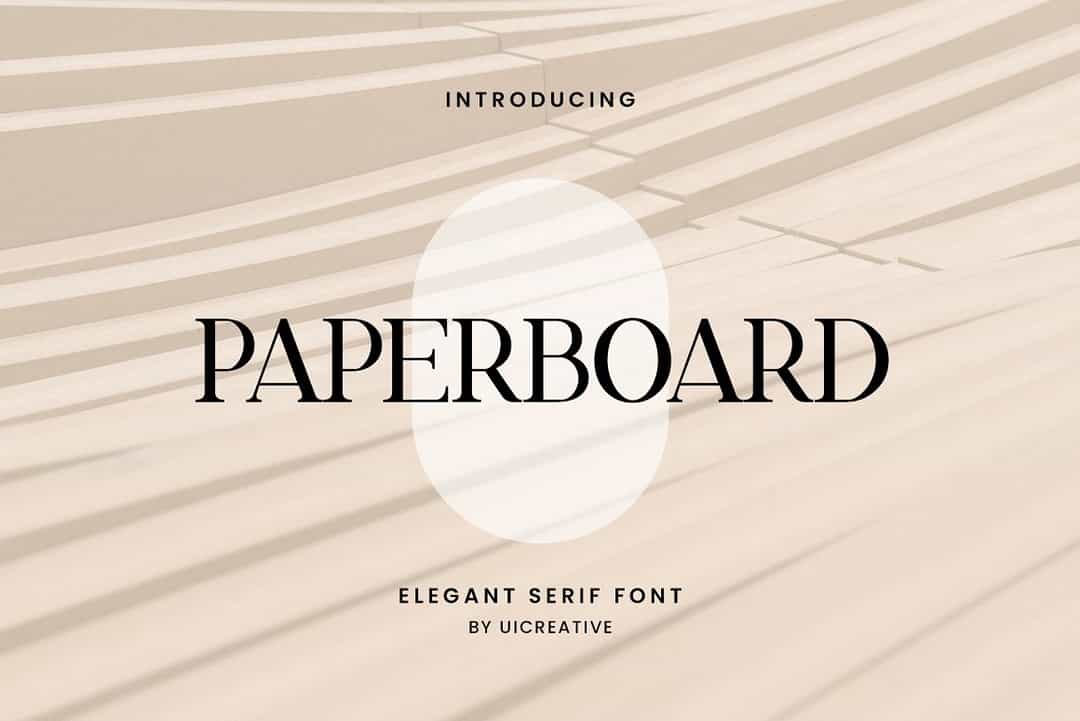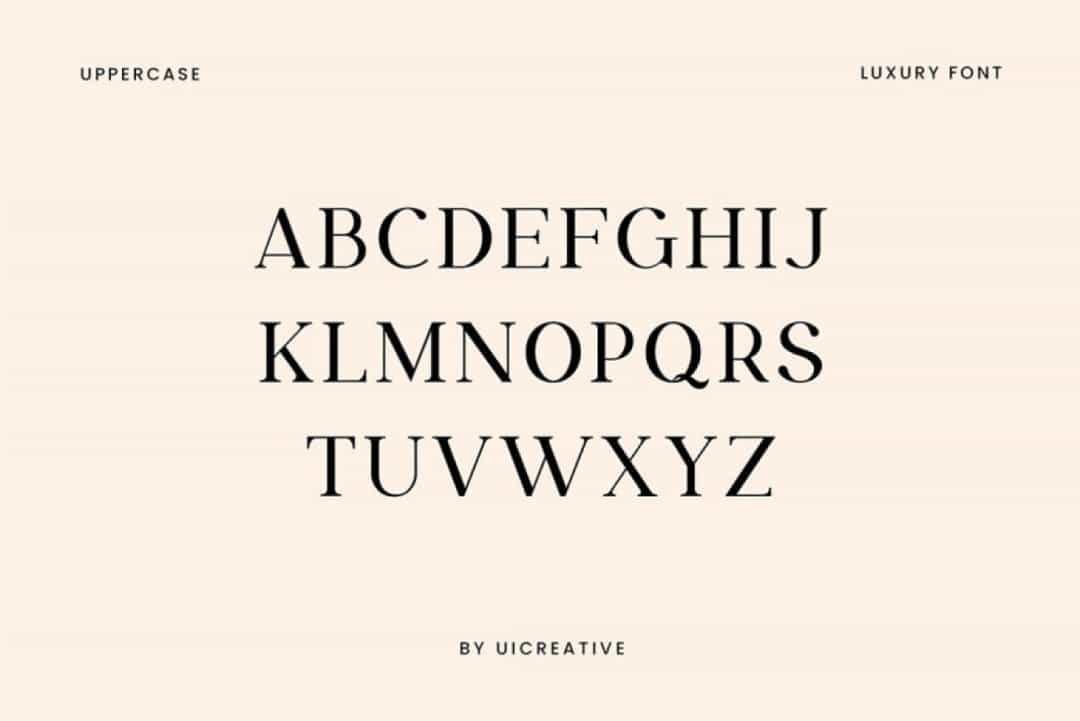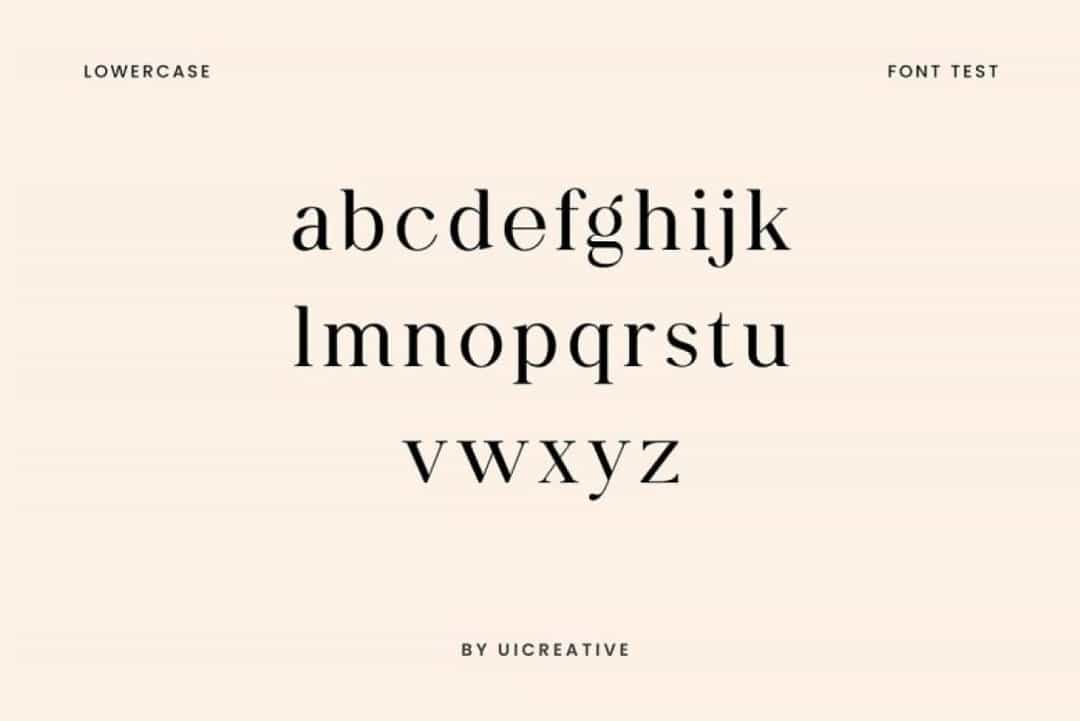
Paperboard is an elegant serif typeface with contemporary flair, ideal for use in many designs. From stationary and signatures to wedding logos and typography quotes on book or magazine covers – as well as headers for websites and branding efforts as well as clothing packaging design – Paperboard makes an impression that feels both feminine and masculine simultaneously.